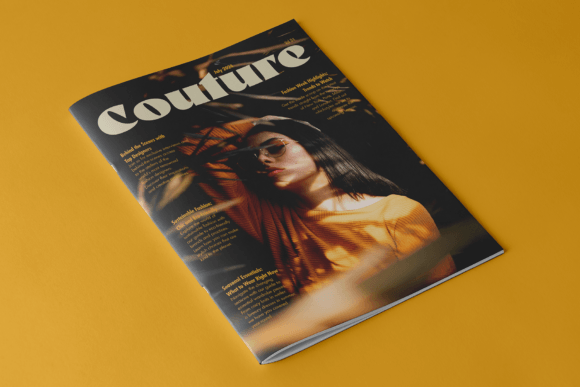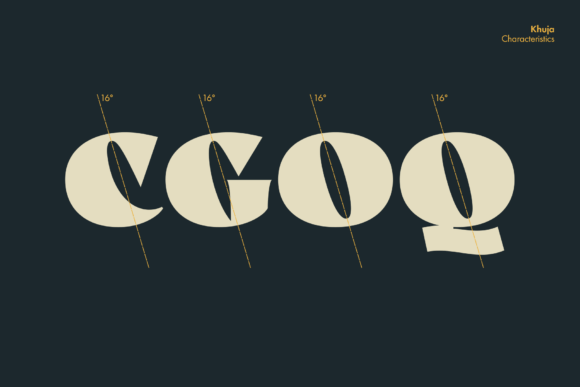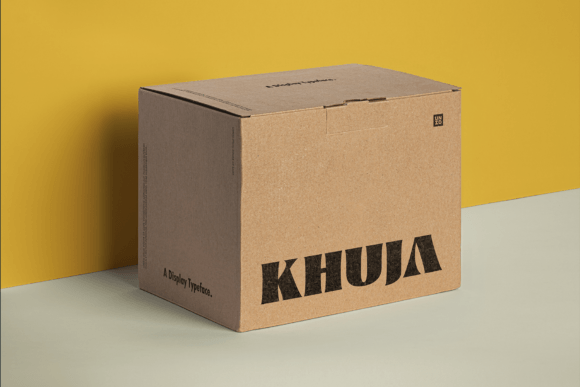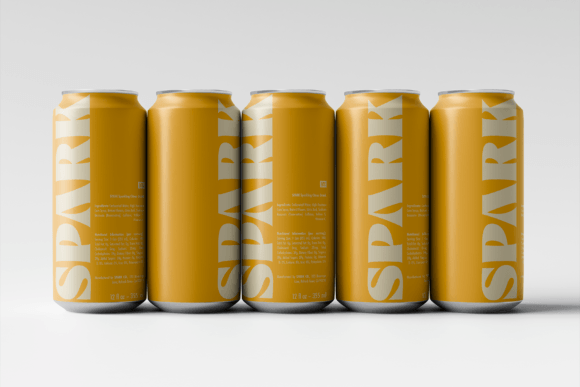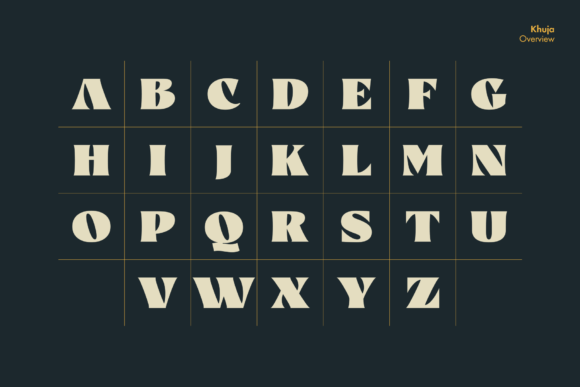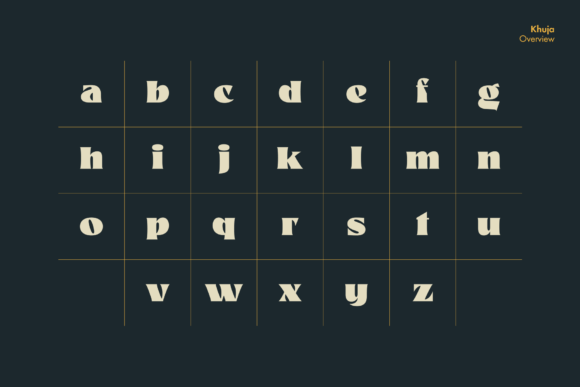
Introduction to Khuja Font
Introducing Khuja, a captivating display typeface that artfully fuses organic, flowing curves with bold, geometric forms.
This unique combination lends Khuja a touch of sophistication, embodying the raw power and elegance of nature Every letter in Khuja is meticulously crafted to ensure a cohesive and visually striking appearance, enhancing both legibility and versatility across a wide range of applications.